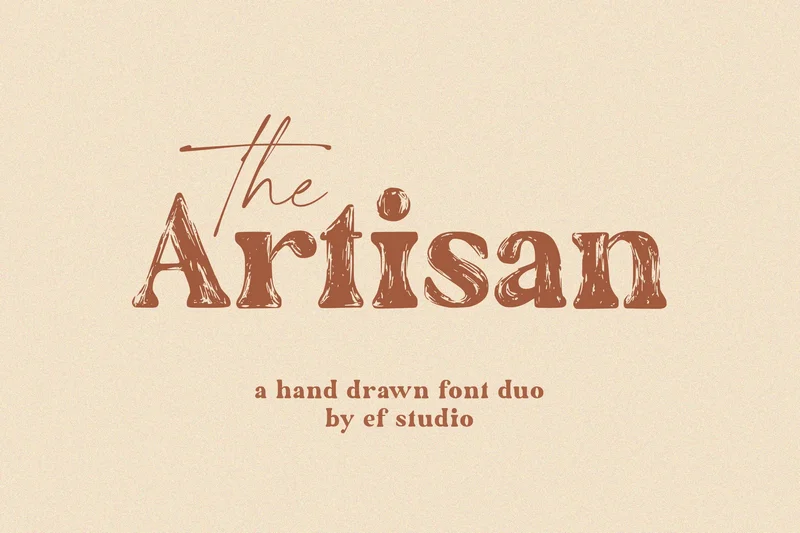
The Artisan
The Artisan is a hand-drawn font duo that blends rustic charm with artistic flair. Featuring a textured serif and a natural script, it captures the warmth of handcrafted lettering. Perfect for logos, packaging, invitations, and editorial projects that need a personal, organic, and creative feel. You will get :